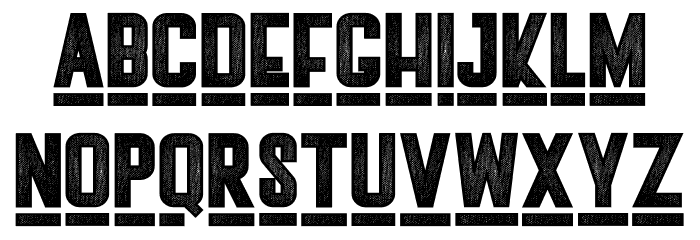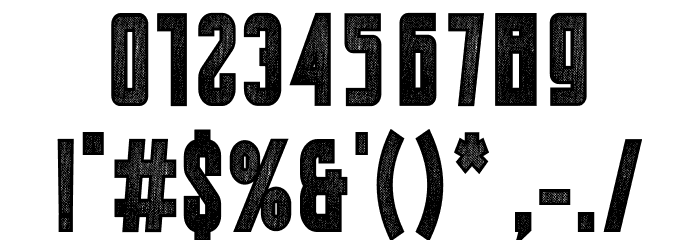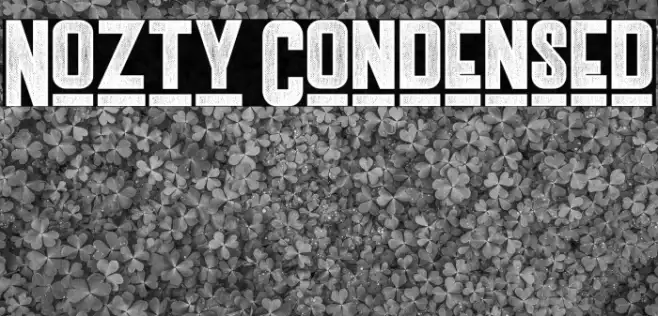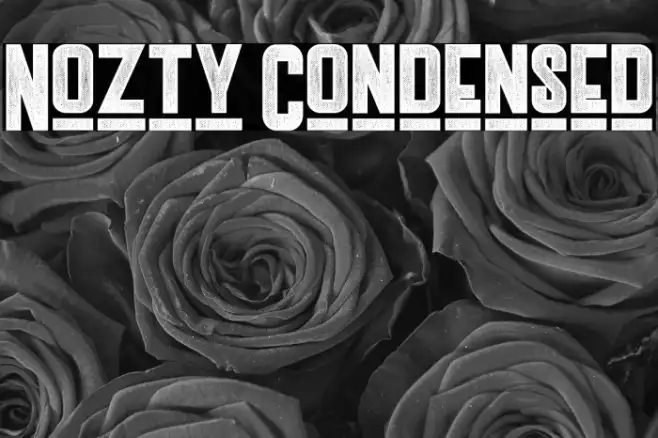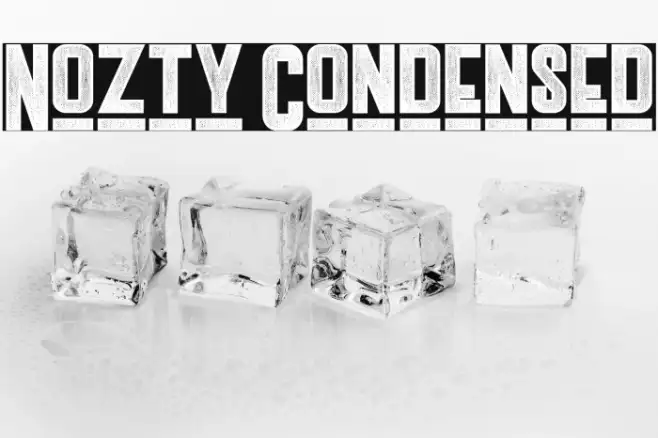
Nozty Condensed Font
This font features a bold, condensed style with a textured, distressed appearance, giving it a rugged and vintage feel. The uppercase letters are prominent and impactful, making them ideal for attention-grabbing headlines. The numbers and special characters maintain the same bold and textured aesthetic, ensuring consistency across all elements. The font's condensed width allows for efficient use of space, making it suitable for designs where space is limited but impact is necessary. The overall style is reminiscent of old-school posters or industrial signage, adding a touch of nostalgia and character to any project.
A bold, condensed font with a textured, vintage appearance.
- Font: Nozty Condensed
- Proposed Projects: Ideal for vintage-themed posters, industrial design projects, branding for rugged products, and any design requiring a bold, impactful typeface.
- Overall Style: Vintage